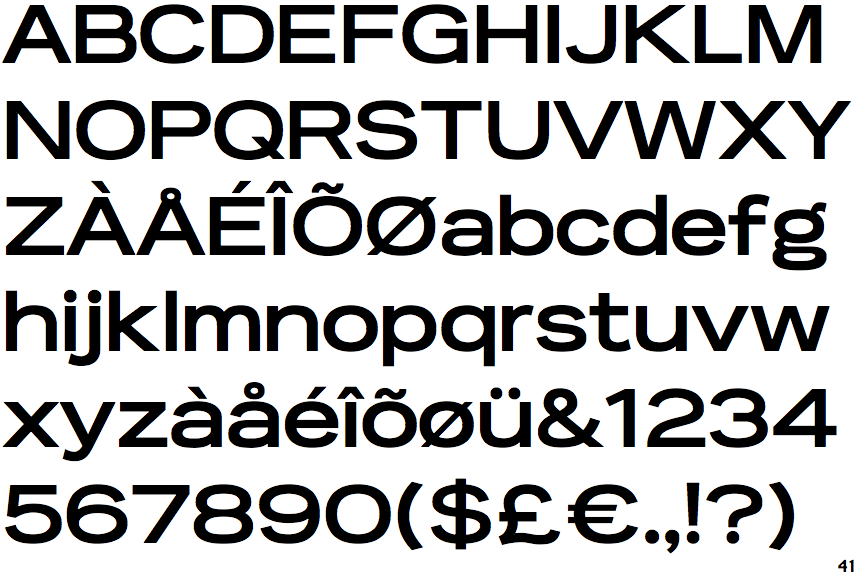
This Bold Font Supports Different Languages And Is Used On A Wide Range Of Designs Such As Headers, Flyers,.
Curious | Bold Brush Type Is Designed By Danila Pugachev.
Ff Dax Is A Typeface Designed By Hans Reichel, And Is Available For Desktop, Web, And App+.